1. Introduction Use Custom Fonts Photoshop
Use Custom Fonts Photoshop Typography plays a crucial role in modern graphic design, especially when working in Adobe Photoshop. Whether you are designing product packaging, posters, logos, or social media graphics, the ability to use custom fonts in Photoshop gives you full creative freedom and a unique visual identity.
This guide is written for beginners, designers, marketers, and anyone who wants to enhance their Photoshop workflow.
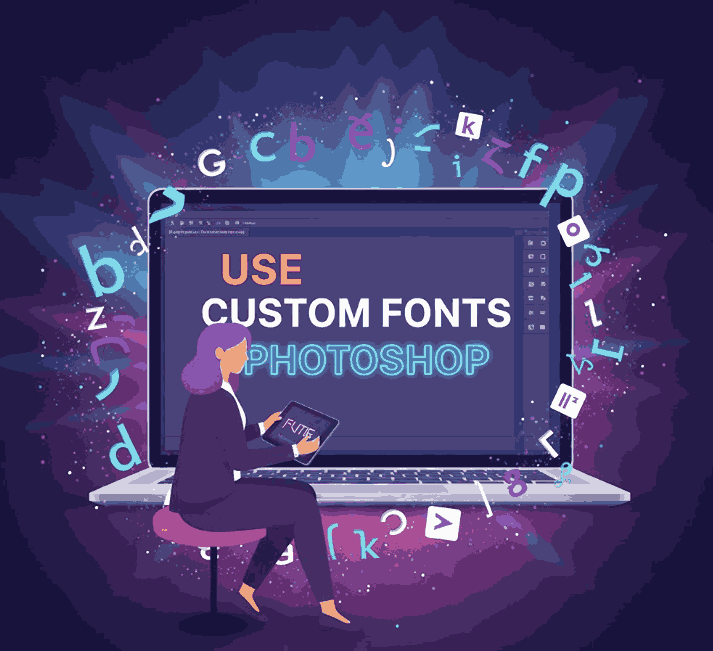
2. Why Matter in Use Custom Fonts Photoshop
Using custom fonts unlocks endless possibilities for branding and creative expression. Here’s why they matter:
✔ Unique Branding Identity
Custom fonts help brands stand out from competitors.
✔ More Design Flexibility
Photoshop becomes far more powerful when designers are not limited to system fonts.
✔ Creative Consistency Across Media
Whether designing for print, websites, or social media, custom fonts ensure stylistic harmony.
✔ Professional Visual Appeal
Fonts influence emotion, readability, and the perceived quality of the design.
In short, custom fonts help turn good designs into great ones.
4. How to Use Custom Fonts Photoshop
Once installed, using the font is easy:
- Open Photoshop.
- Choose the Type Tool (T).
- From the top font dropdown, type the name of your installed font.
- Click on your canvas and start typing.
- Adjust size, spacing, color, and effects (shadow, stroke, gradient, etc.).
Photoshop also supports OpenType features, including:
- Stylistic alternates
- Ligatures
- Swashes
- Multilingual characters
These enhancements make custom fonts even more powerful for creative projects.
5. Best Use Custom Fonts Photoshop (Examples from Edric Studio)
Below are recommended fonts from Edric Studio that work beautifully for Photoshop product mockups, posters, branding, and packaging design.
1. Always Find – Display Font
A playful, modern display font perfect for product packaging, social media posts, and creative advertising.
2. Dewebeauty – Signature Font
A stylish, elegant script font ideal for beauty brands, perfume packaging, and premium product labels.
3. Blacked – Modern Sans Serif Font
A bold, clean sans serif font suitable for branding, minimalist product packaging, and editorial layouts.
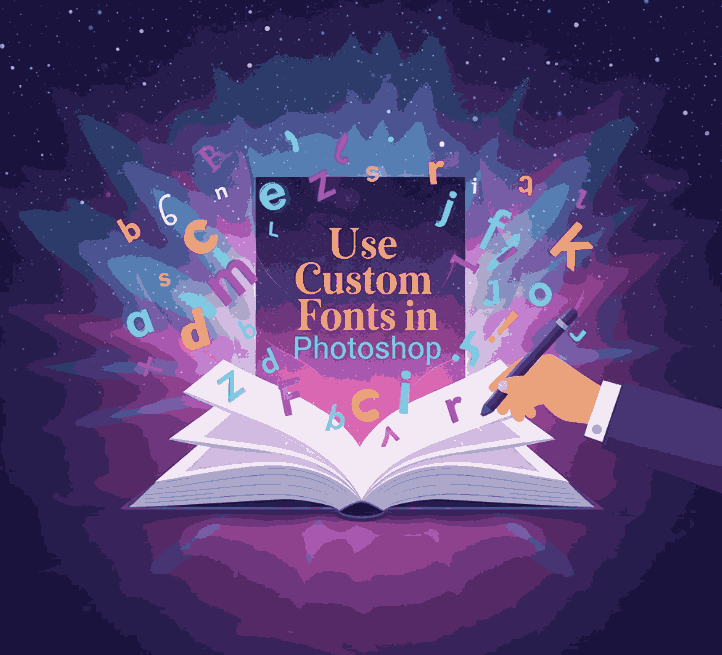
- Make sure the font is installed for “All Users” (Windows)
❗ Missing glyphs or symbols?
Check if the font supports:
- PUA encoding
- OpenType features
- Multilingual characters
❗ Font looks pixelated?
Increase font size or change your document resolution to 300 DPI.
7. Tips for Choosing the Right Use Custom Fonts Photoshop
1. Match the Use Custom Fonts Photoshop style with your project
Elegant → Script fonts
Modern → Sans serif
Bold impact → Display fonts
2. Check readability Use Custom Fonts Photoshop
Especially for product labels or posters.
3. Consider brand tone Use Custom Fonts Photoshop
Fonts communicate emotion.
4. Use font pairing wisely Use Custom Fonts Photoshop
Combine serif + sans serif or display + minimalist fonts for balance.